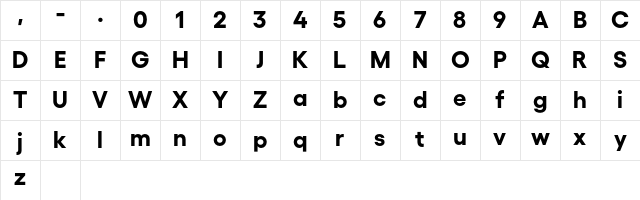
Gellix TRIAL Bold Free Font
Gellix TRIAL Bold
Foundry: Displaay
Designer: Martin V￿cha
Design Context for Gellix TRIAL
Gellix TRIAL is a composed and adaptable typeface that performs quietly and consistently across a wide range of design contexts. Its bold stroke weight gives it real presence on the page.